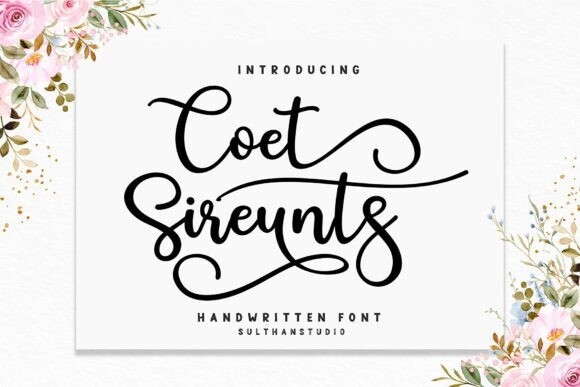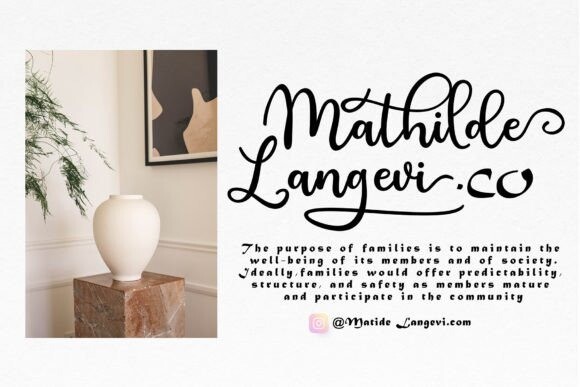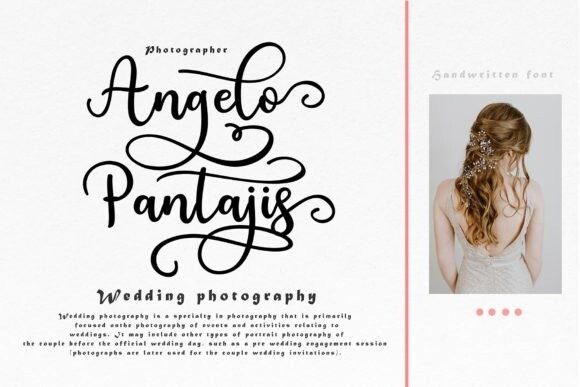
Coet Sireunts Font
Coet Sireunts Font is a handwritten script font that comes with a modern style that is perfect for any job and craft that requires a thick font to get perfect cuts or letters good for use on T-shirts or also stickers, magazines or titles.